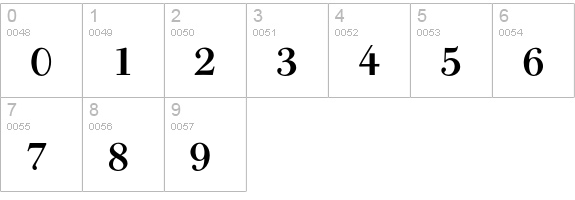
Bodoni Old Face Medium Font Details
Bodoni Old Face Medium is a balanced, medium-weight variant in the Bodoni typeface family \xE2\x80\x94 well suited to sub-headlines, navigation, and balanced editorial work.
Bodoni Old Face Medium font exudes elegance and sophistication with its classic design and timeless appeal. Its precise lines and graceful curves make it ideal for conveying a sense of refinement and style in various design projects. The medium weight strikes the perfect balance between boldness and delicacy, making it versatile for use in both headings and body text. This exquisite font is a popular choice for designers seeking a touch of vintage charm and sophistication in their creations. Whether used in print or digital media, Bodoni Old Face Medium font commands attention and adds a touch of luxury to any project. Best of all, this premium font is freely available to download at FontsMarket.com, making it easily accessible for designers looking to elevate their work with a touch of classic beauty. Experience the timeless elegance of Bodoni Old Face Medium font today and add a touch of sophistication to your next design project.